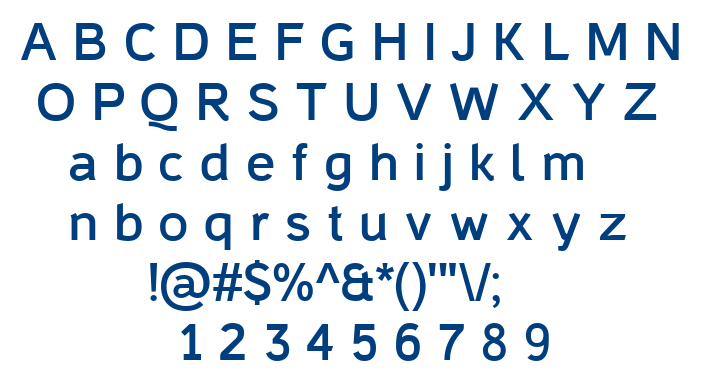
This is a continuation of my experimentation with fonts. Significant and minor revisions in the structure of characters. Also changed some of the characters forming. It still has elements of different styles, but Casper has become more holistic and harmonious.Includes arrows, alternate characters and signs, and legatury ordinals. Total 582 glyph.